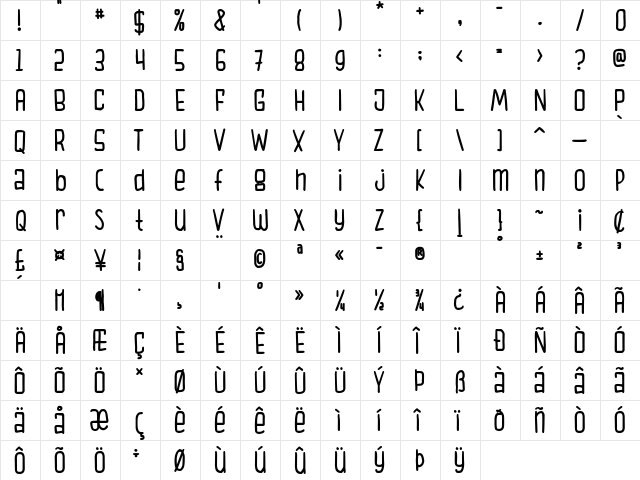
Savourer Regular
Design Context for Savourer Typeface
Savourer takes a measured approach to typography — its balanced proportions and neutral character make it a reliable workhorse for both digital and print work.
Pro Tip: Use Savourer in both headline and body roles to test its range before committing to a single application.